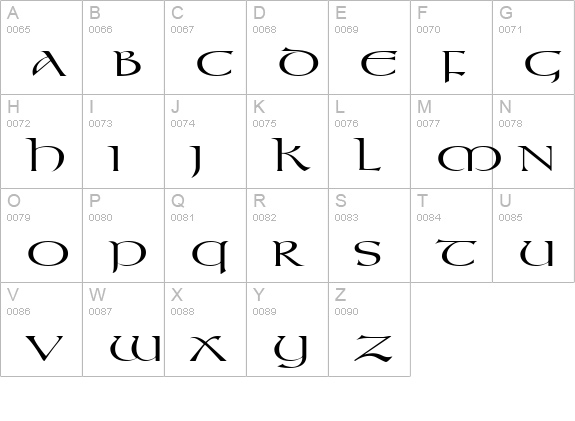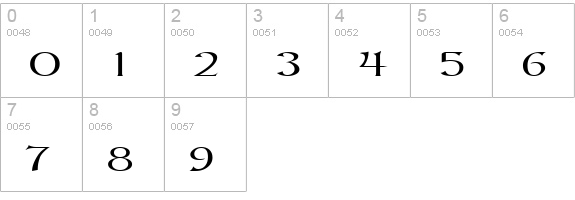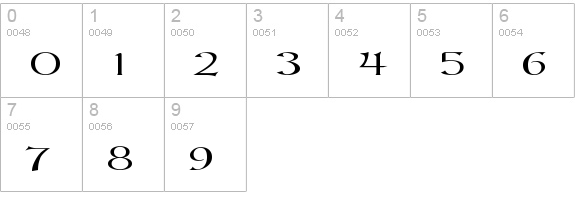
Kelt Extended Normal is the standard, neutral, extended-width variant in the Kelt typeface family \xE2\x80\x94 well suited to general body text, paragraphs, and standard typographic work.
Introducing Kelt Extended Normal, a versatile and visually captivating font that will bring a touch of elegance to any project. This exquisite typeface is designed to effortlessly enhance your designs with its unique blend of classic and contemporary elements. Kelt Extended Normal stands out with its perfect balance between clean lines and subtle curves, creating a harmonious and inviting appearance. Its well-defined letterforms exude confidence and professionalism, making it an ideal choice for various design applications, including branding, logos, headlines, and more. With its extended character set, Kelt Extended Normal offers a wide range of options to cater to your creative needs. Whether you're looking for a bold statement or a more refined look, this font has got you covered. Its versatility allows it to seamlessly adapt to various design styles, making it a go-to choice for both digital and print projects. What sets Kelt Extended Normal apart is not only its stunning aesthetic but also its accessibility. This font is freely available to download at FontsMarket.com, allowing designers and enthusiasts alike to unleash their creativity without any restrictions. With just a few clicks, you can elevate your designs and give them a professional edge, all while enjoying the convenience of a free and readily available typeface. So, why settle for ordinary when you can embrace the extraordinary with Kelt Extended Normal? Download this captivating font today and unlock a world of possibilities for your design endeavors. Remember, it's not just a font; it's a statement of elegance and sophistication that will leave a lasting impression on your audience.